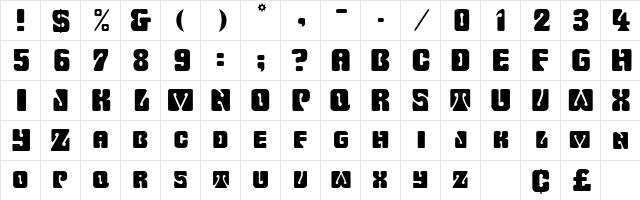
WavyOrnamental Regular
Design Context for WavyOrnamental Typeface
WavyOrnamental brings ornamental detail and strong personality to headlines and identities, where visual impact matters more than quiet functionality.
Font Pairing: Pair with a clean neutral sans-serif for body copy to let WavyOrnamental's character lead without overwhelming the composition.
Pro Tip: Use WavyOrnamental exclusively at display sizes — it was designed to be seen, not read at length. Let a neutral companion handle body copy.